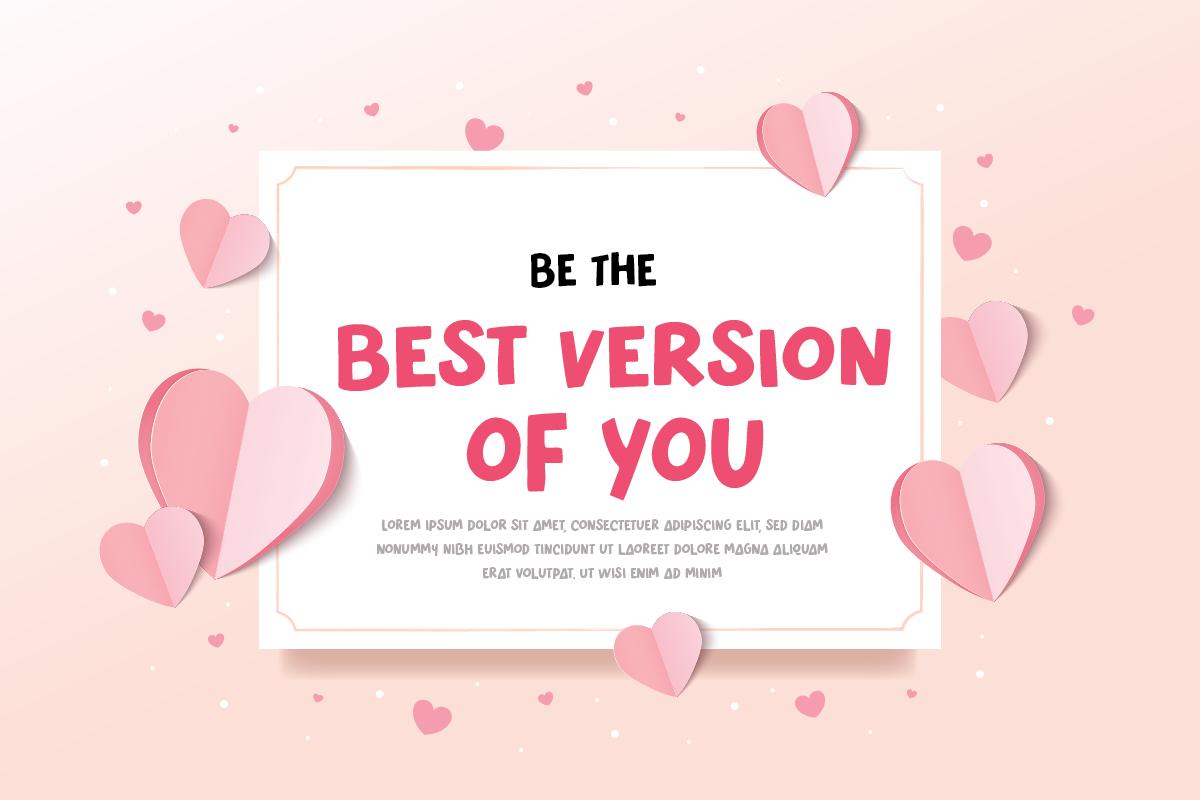
ENHANCING YOUR WEBSITE’S VALENTINE’S DAY THEME WITH ROMANTIC FONTS
As Valentine’s Day approaches, creating a festive atmosphere on your website can engage your visitors and enhance their experience. One effective way to convey the spirit of love and romance is through the use of carefully selected fonts. This article will guide you through choosing and implementing romantic fonts that will breathe life into your website’s Valentine’s Day theme.
ENHANCING YOUR WEBSITE’S VALENTINE’S DAY THEME WITH ROMANTIC FONTS
As Valentine’s Day approaches, creating a festive atmosphere on your website can engage your visitors and enhance their experience. One effective way to convey the spirit of love and romance is through the use of carefully selected fonts. This article will guide you through choosing and implementing romantic fonts that will breathe life into your website’s Valentine’s Day theme.
The Importance of Font Choice in Web Design:
• Emotional Impact: Fonts have the power to evoke emotions, making them essential for setting the right mood on your website during Valentine’s Day.
• Brand Consistency: Selecting fonts that align with your brand’s identity while incorporating a touch of romance is key to maintaining professionalism and coherence.
Top Romantic Fonts for Your Website:
Here, we’ll introduce a selection of fonts from our “10 Best Fonts for Valentine’s Day” list, focusing on those that are particularly suited for web use. For each font, we’ll provide a brief description, usage tips, and compatibility notes.
1. Lovely Home: A script font that exudes warmth and intimacy, perfect for headlines and special offers.
2. Heartfelt: Combines classic and modern elements, making it versatile for various web elements.
3. Romance Serif: Elegant and refined, this serif font adds a touch of sophistication to your content.
4. Cupid’s Arrow: A playful display font that captures the whimsical side of Valentine’s Day.
5. Eternal Love Sans: A clean, sans-serif font that offers readability and charm, ideal for body text.
Design Tips for a Valentine’s Day Theme:
• Color Schemes: Suggest romantic color palettes that complement the selected fonts.
• Imagery and Icons: Recommend incorporating heart-shaped icons and love-themed imagery to enhance the overall design.
• Responsive Design: Emphasize the importance of ensuring the Valentine’s theme looks great on all devices.
Incorporating romantic fonts into your website’s design for Valentine’s Day can significantly enhance the user experience, making your site feel more inviting and festive. By selecting the right fonts and implementing them thoughtfully, you can create a memorable impression on your visitors during this season of love.